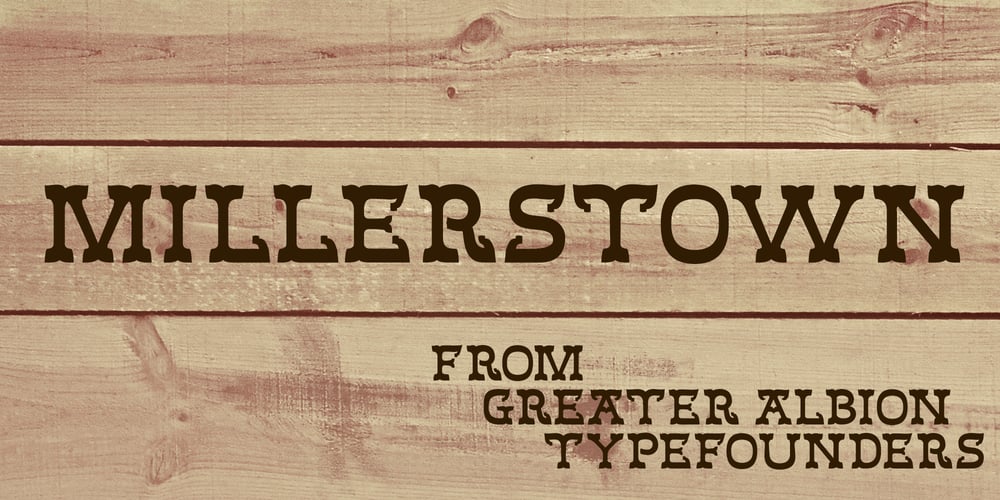
Millerstown
Millerstown font
Millerstown Font Family was designed by Paul James Lloyd and published by Greater Albion Typefounders. Millerstown contains 1 styles and family package options. Millerstown is full of that solid, 19th Century, transatlantic spirit of enterprise. It is an all capitals face, decorative but clear and legible, ideal for signage, posters and banners. Bring a touch of American inspired flair to your next design project!